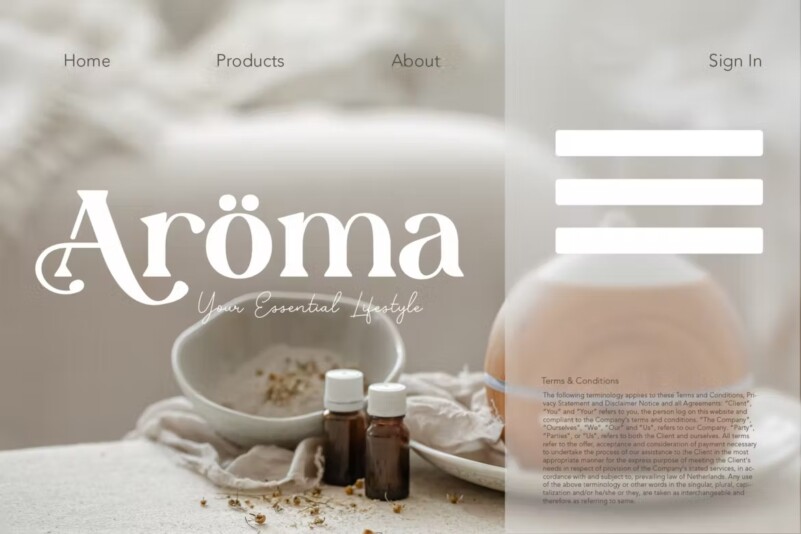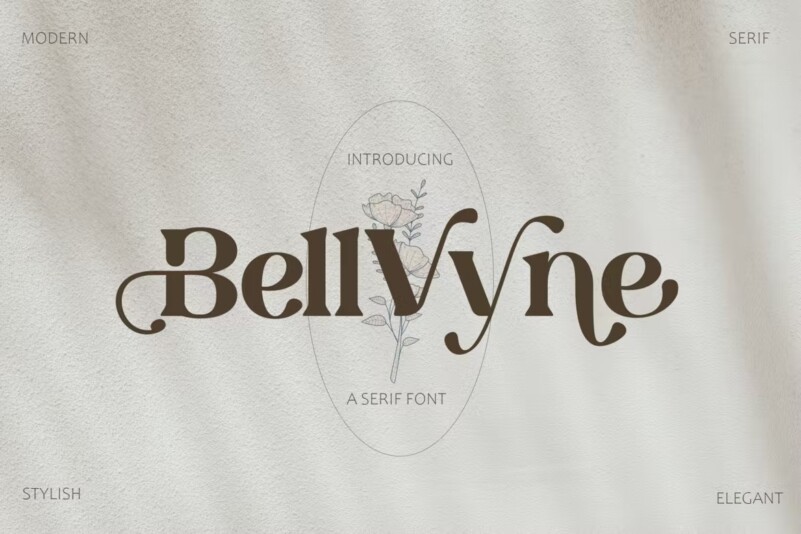
Bellvyne – Serif Font.
Sleek with a modern twist, Bellvyne is perfect for making your brand stand out. It’s a great choice for web pages, apps, ads, banners, promotions, printed cards, packaging, and just about anything your project needs.